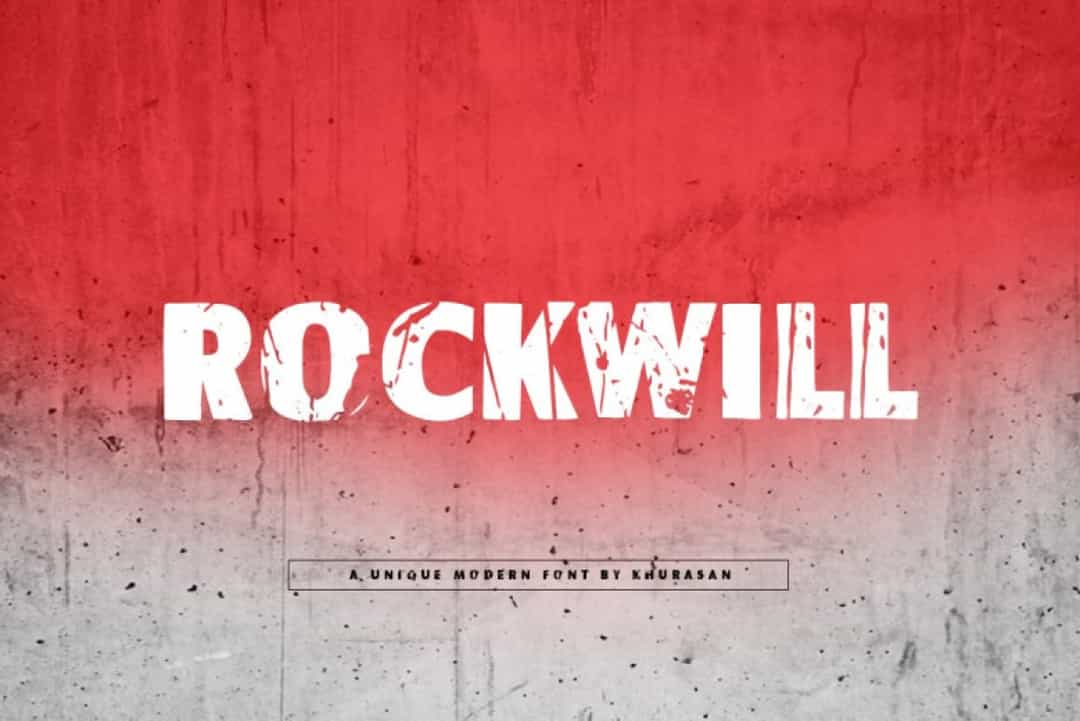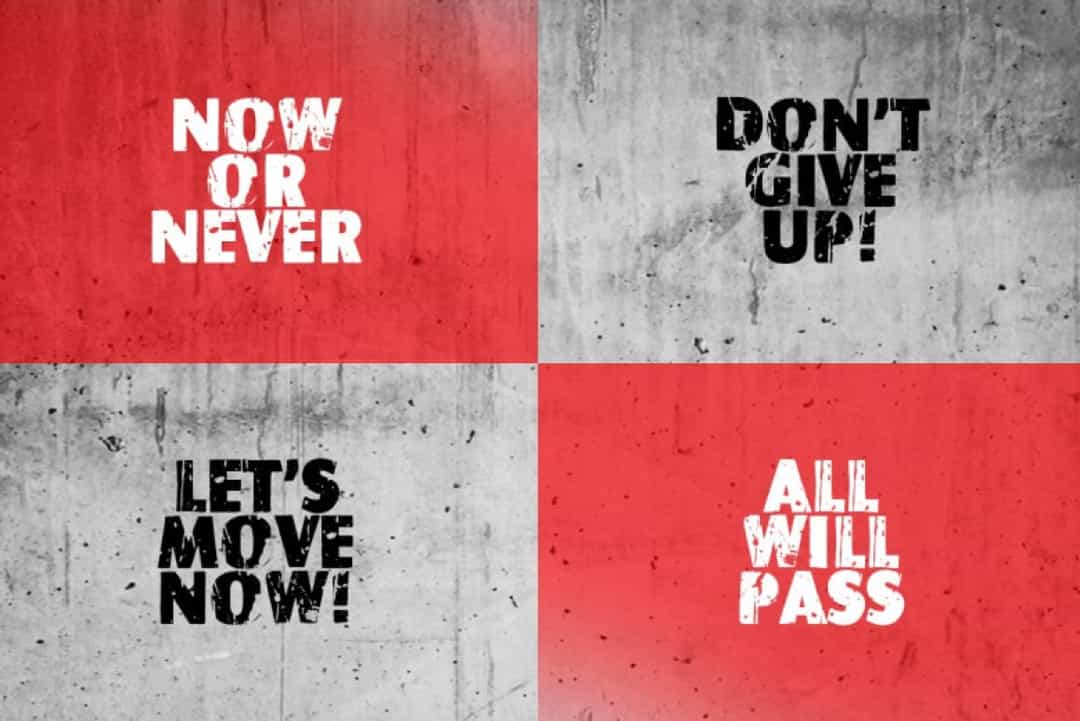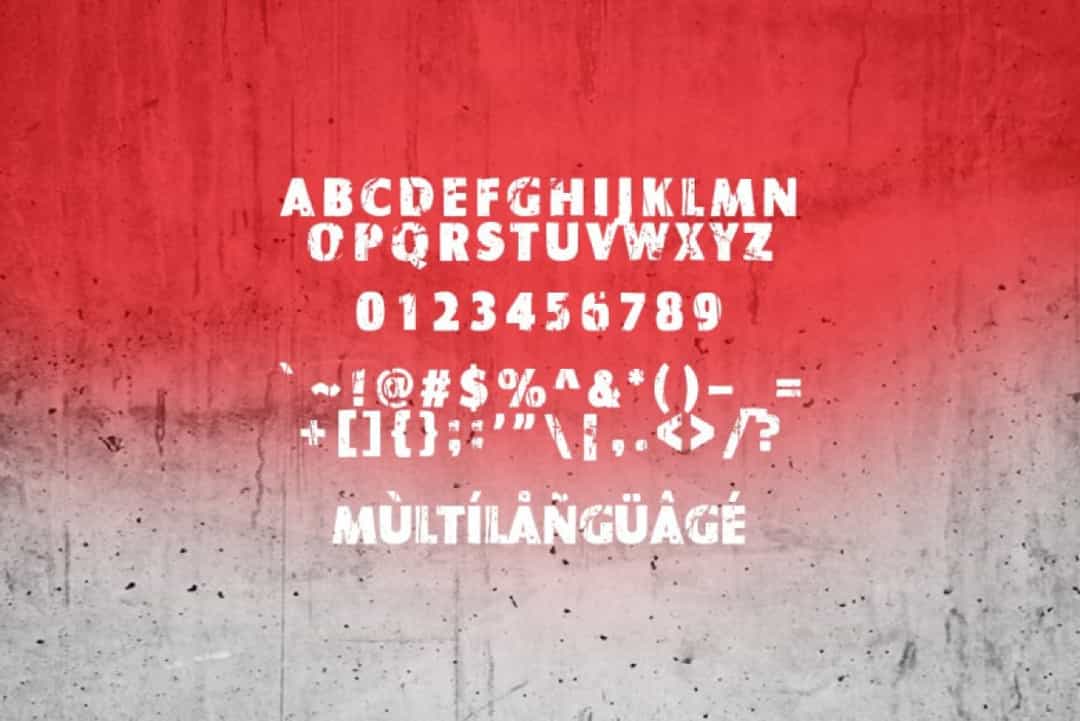
Rockwill font is a modern rough sans serif font with elegant and contemporary character set. Additionally, this font offers multilingual support such as uppercase numerals and punctuation marks.